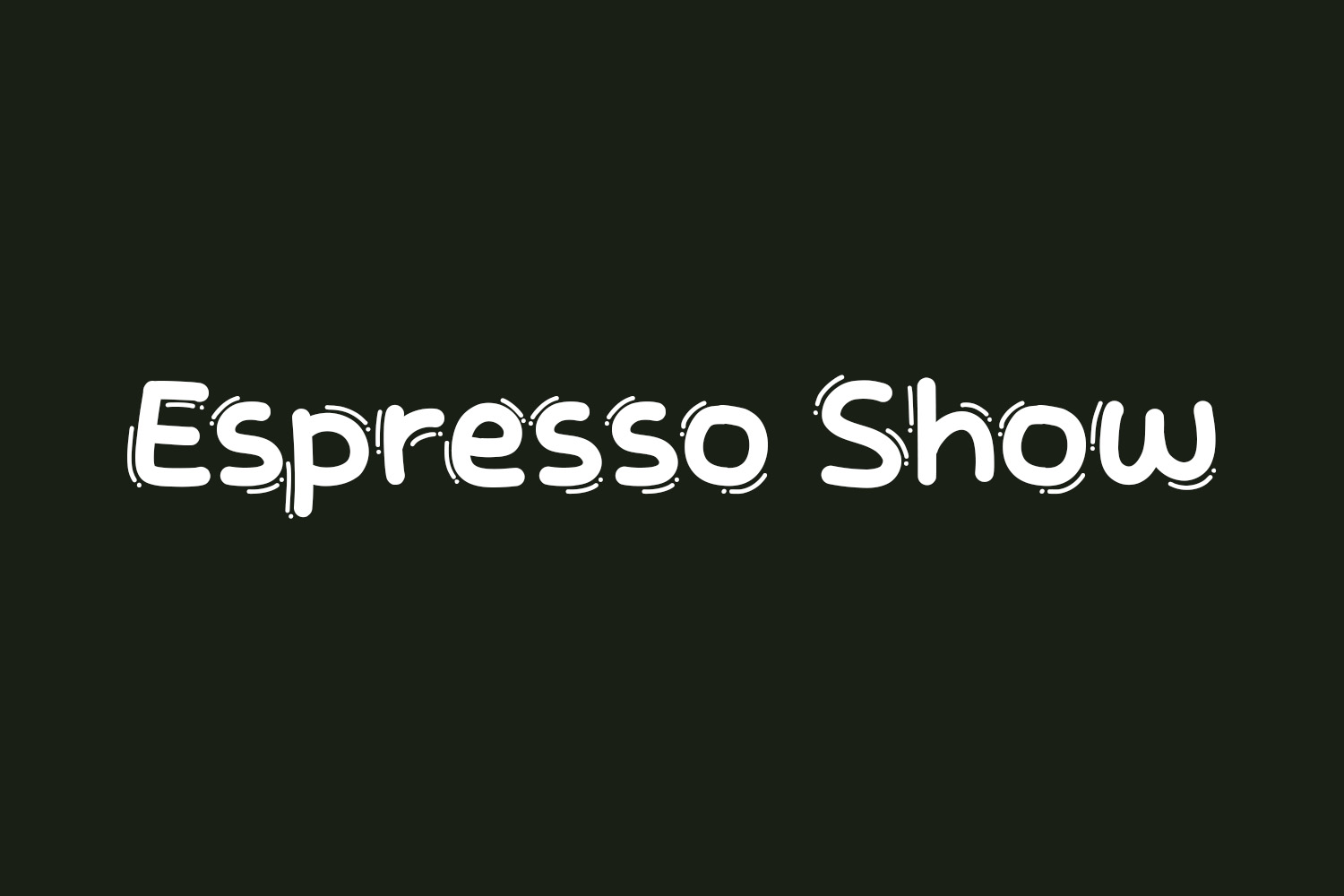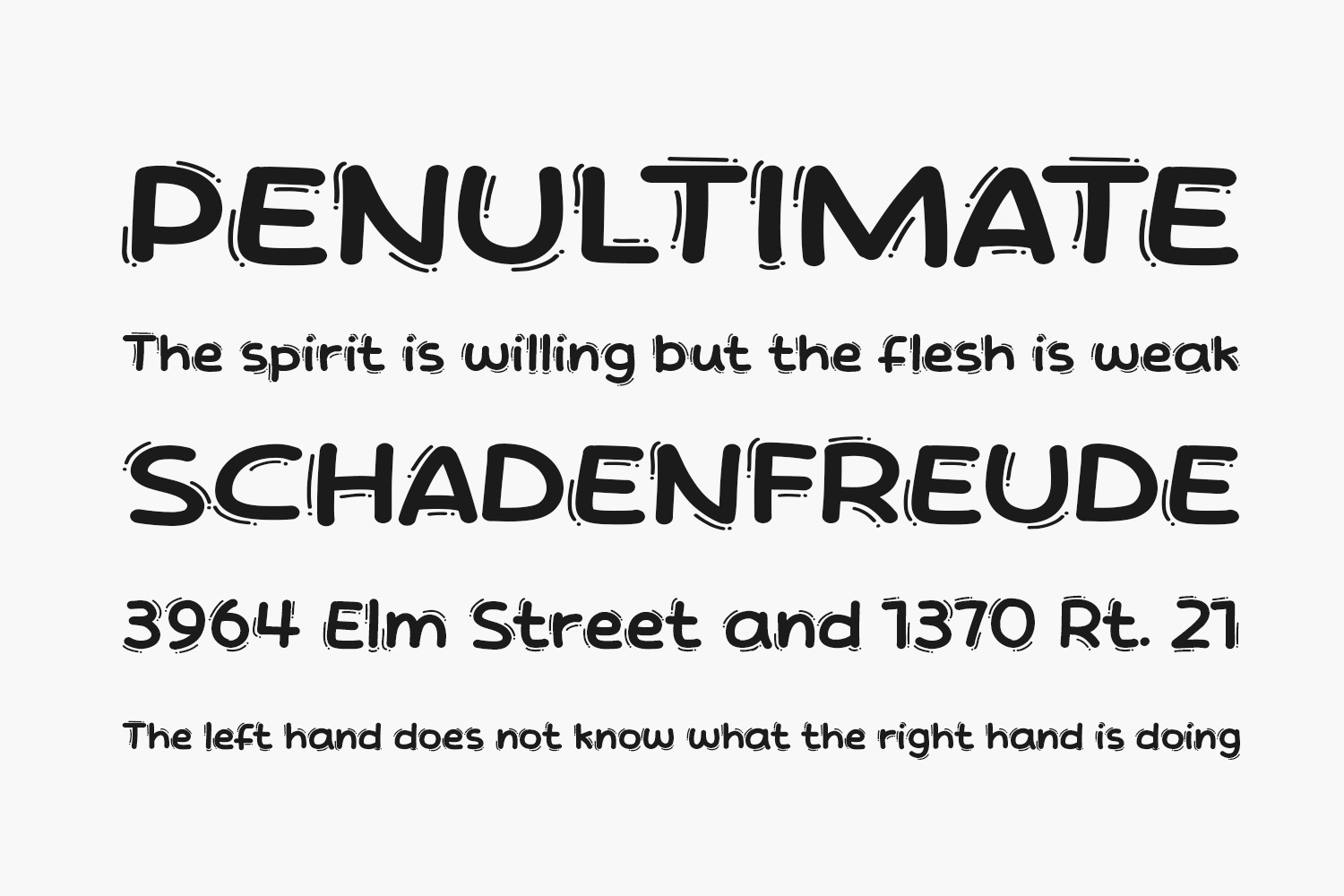
Discover Espresso Show Free Font, a contemporary and sophisticated display font tailored for posters, logos, magazines, book covers, banners, and more! Elevate your designs with this remarkable font that effortlessly complements a vast array of projects. Integrate Espresso Show into your creative ideas and witness how it effortlessly makes them stand out with its modern and stylish appeal. Get this amazing font and bring a touch of elegance to your designs. Espresso Show Free Font was designed by Khurasan and is free for personal or commercial use.